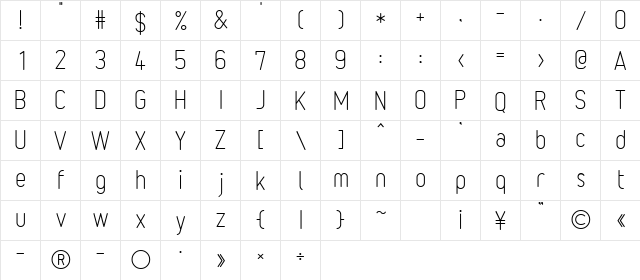
232MKSD RoundLight
Design Context for 232MKSD Typeface
232MKSD softens its letterforms with rounded terminals, giving it an approachable, friendly quality that works well in consumer-facing and digital contexts. Its slender proportions lend an understated elegance to any composition.
Well-suited to UI design, mobile interfaces, and any brand that wants approachability without sacrificing clarity.
Font Pairing: Pairs well with a rounded or humanist sans for body copy, maintaining the friendly tone without relying on 232MKSD to carry extended reading.
Pro Tip: Use 232MKSD for UI elements, app interfaces, and anywhere a friendly, approachable tone needs to be maintained without sacrificing clarity.